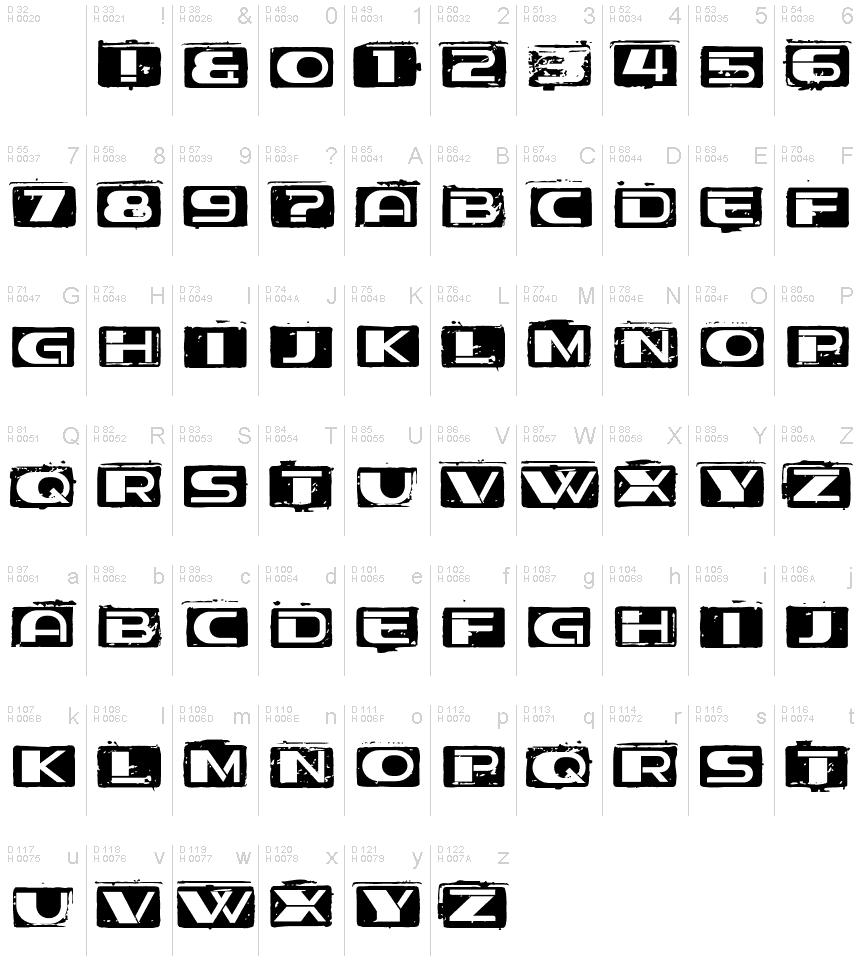
Stage Destroy font is a negative retro typeface designed by Vladimir Nikolic.
It comes in Regular, Book, Circus, Destroy, Hollow, Oriental, Oriental Extruded and Retro variant.
Stage Destroy